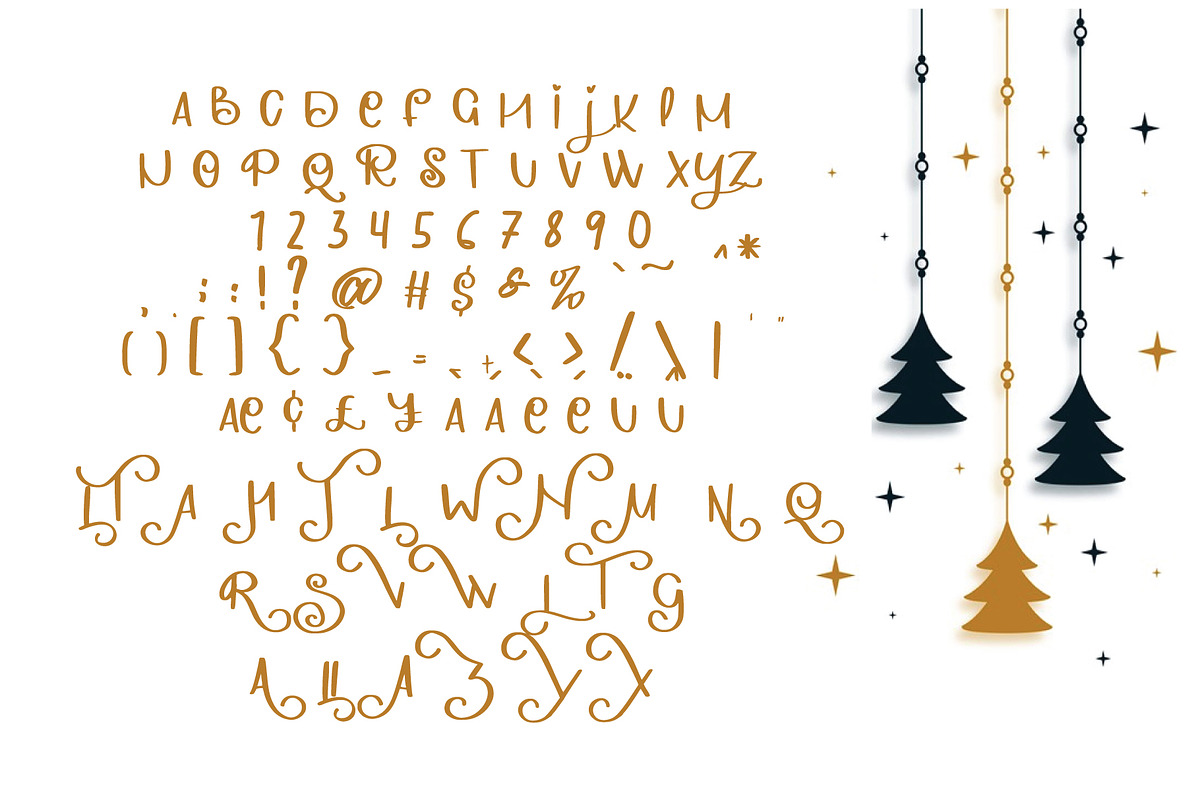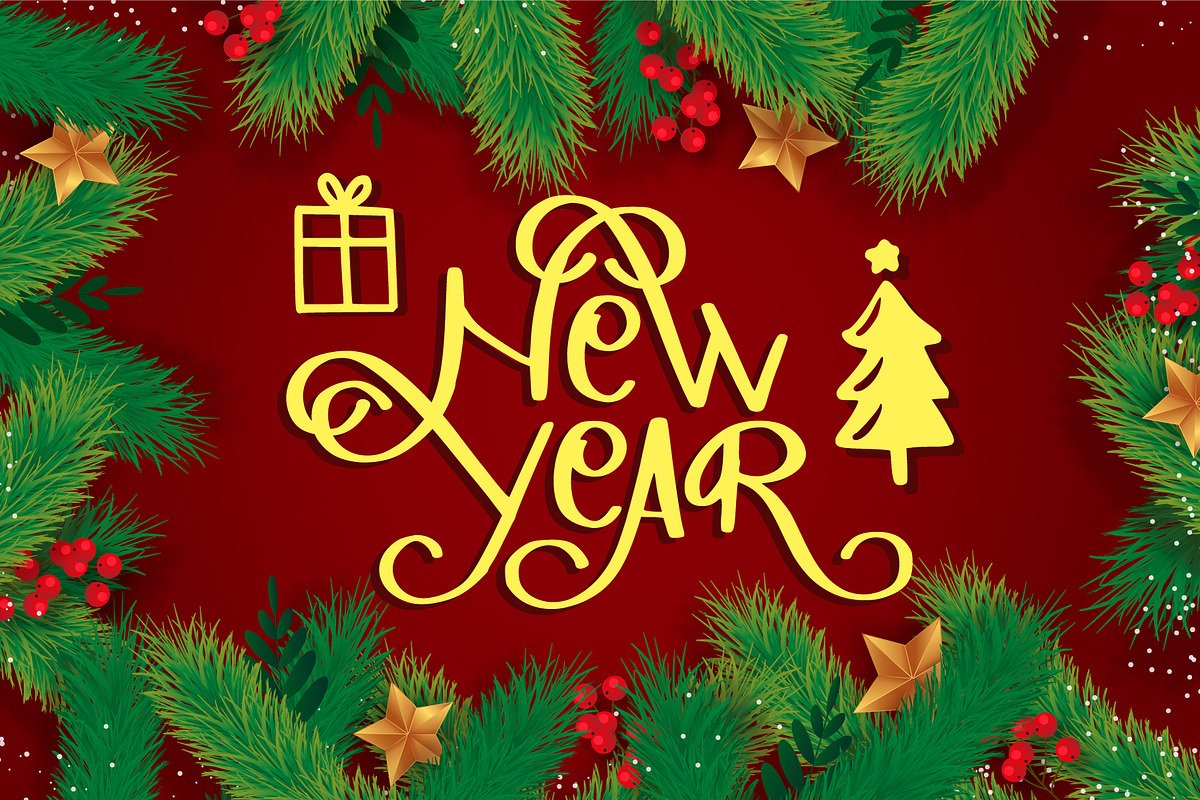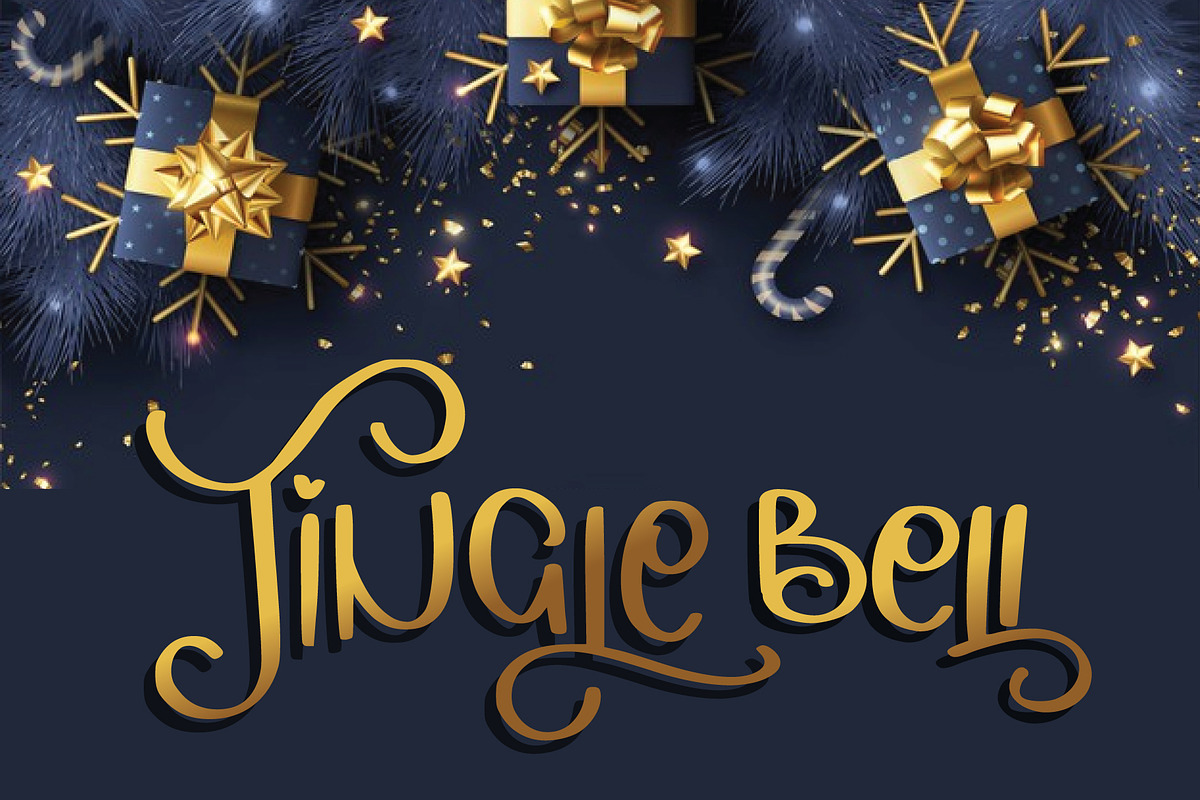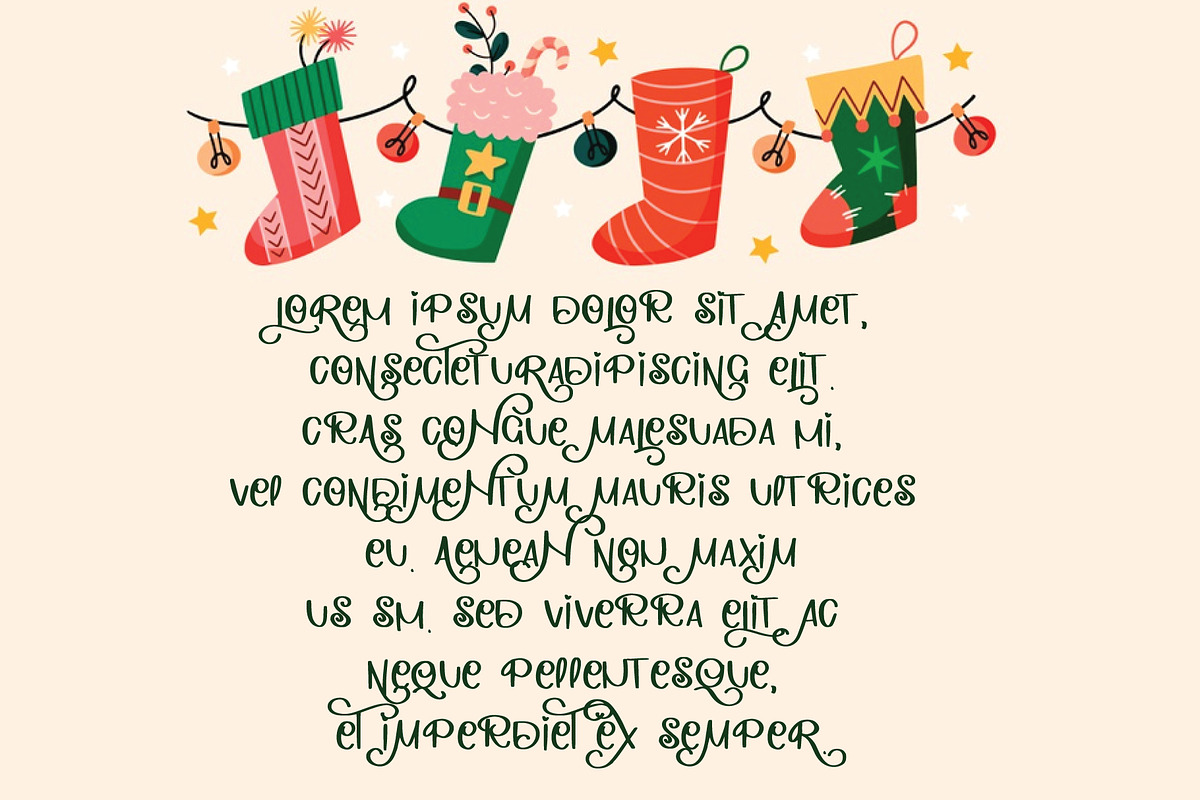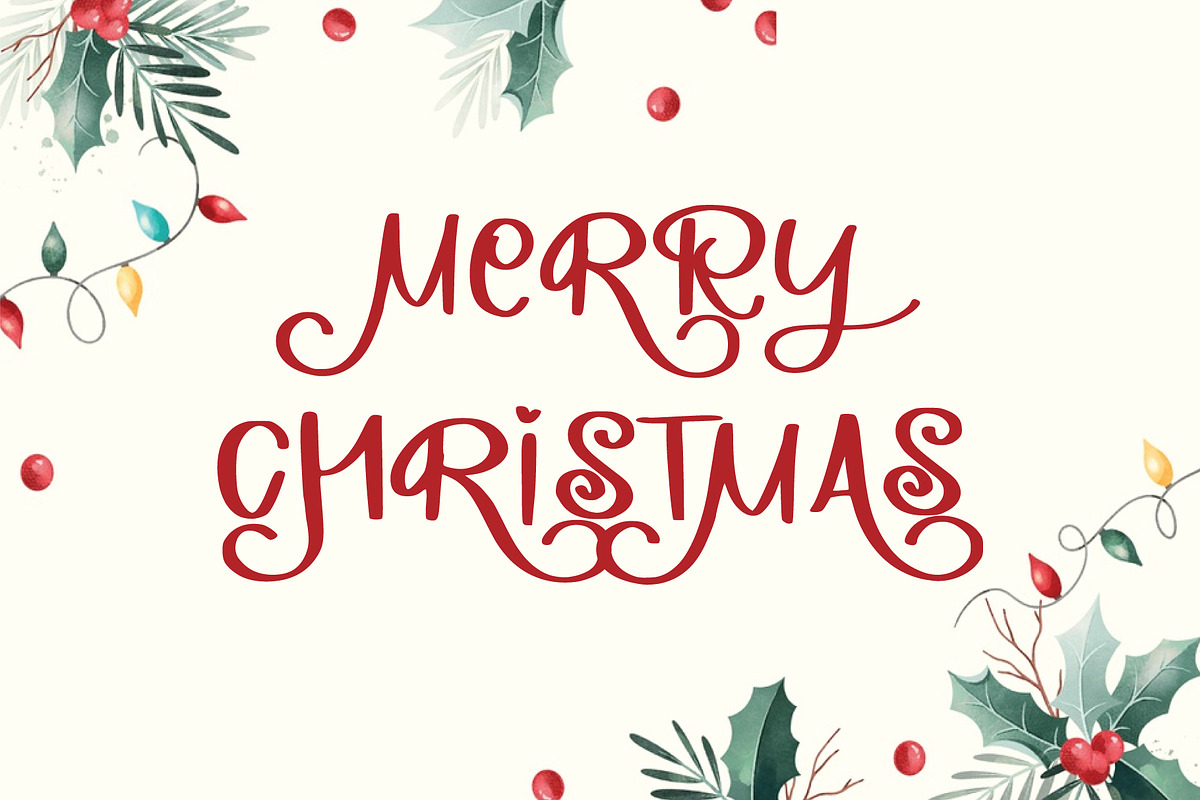
jingle bell
It’s perfect for Christmas cards, branding, stationery, blog design, custom art, custom stamps, custom embossers, book, apparel, packaging, headline, or much more! It will add a unique feel and looks stunning to any design project! This font is PUA encoded which means you can access all of the cute glyphs with ease! It also features a wealth of including ligatures.